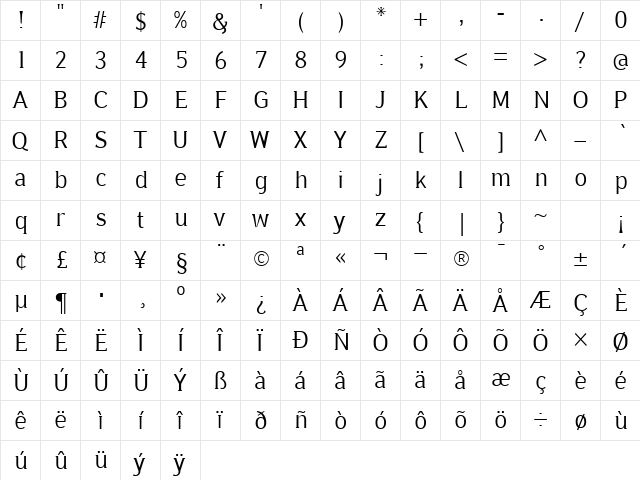
IdeologicaLight Regular
Design Context for IdeologicaLight Typeface
IdeologicaLight offers clean, dependable letterforms without strong stylistic allegiance, making it a practical choice for designers who need flexibility. Its slender proportions lend an understated elegance to any composition.